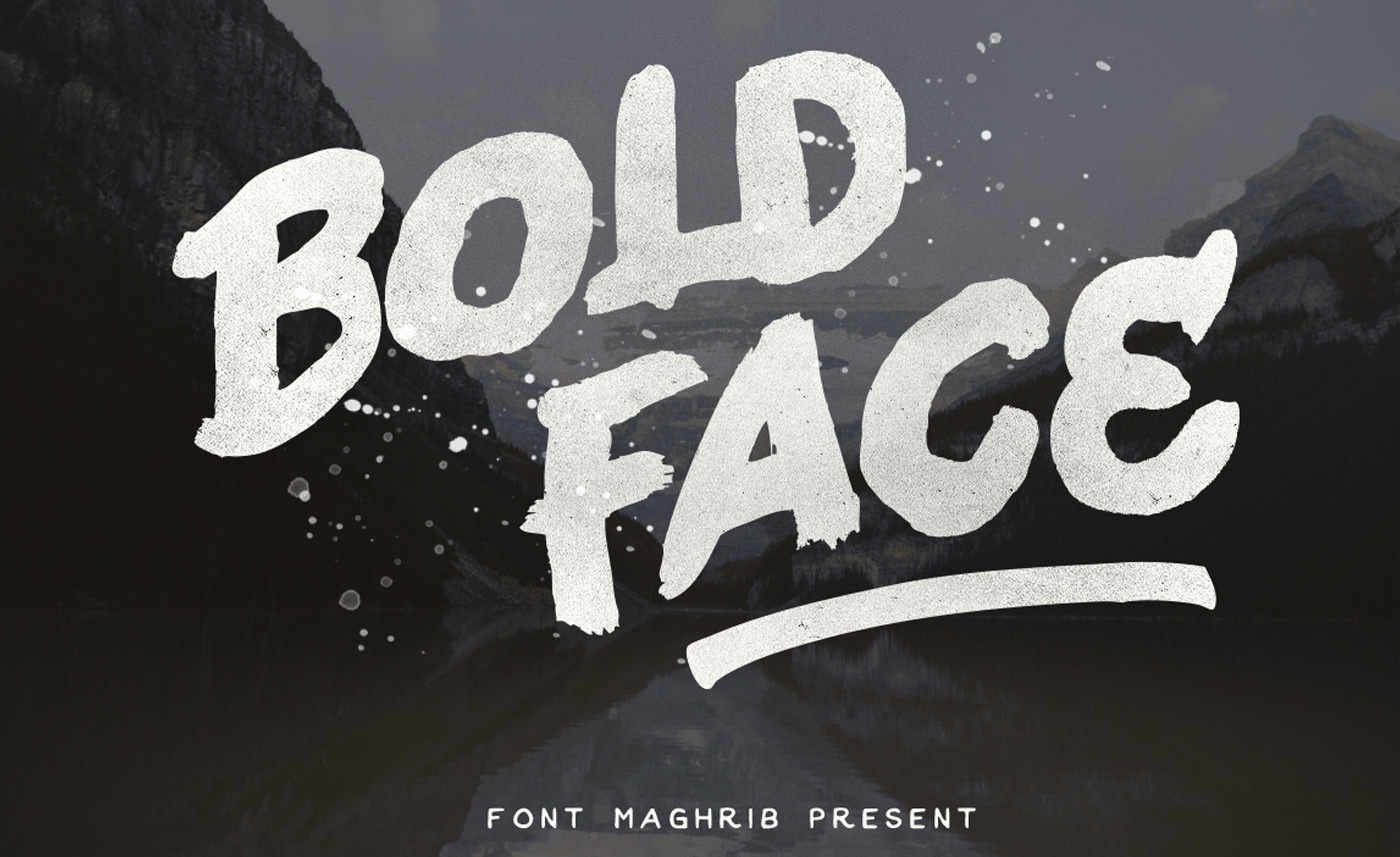
37+ Handwritten Font Microsoft Word PNG. Browse by alphabetical listing, by style, by author or by popularity. Archive of freely downloadable fonts. Handwriting fonts are written with a pen, pencil, or marker. In this video i show you how to make a custom font using microsoft font maker which can be downloaded for free from the microsoft store. I can't really say what the best one is because that's a matter of personal preferrence, but my favourites are: With about two dozen script and handwriting fonts available, you have lots of choices. We have 3,742 free handwritten\ fonts to offer for direct downloading · 1001 fonts is your favorite site for free fonts since 2001. French script mt lucida handwritting mistral segoe script i like these because they link the letters to each other like i do when i'm. Microsoft word can produce 'hand written' notes and letters for a fraction of the cost of a special service. To add a font to word, download and install the font in windows, where it will become available to all office applications. You can also import font files from a cd, a dvd, or your. Fonts come as files, and there are many sites on the internet where you can download free fonts, such as dafont. 1 2 3 4 5 6 7 8 9 10. Writing fonts include both printing and cursive styles and is less artistic than formal calligraphy. Except for one thing, you probably have everything to make your own 'handwritten' letters.
Educational Fontware Inc. Writing fonts include both printing and cursive styles and is less artistic than formal calligraphy. Fonts come as files, and there are many sites on the internet where you can download free fonts, such as dafont. Handwriting fonts are written with a pen, pencil, or marker. With about two dozen script and handwriting fonts available, you have lots of choices. French script mt lucida handwritting mistral segoe script i like these because they link the letters to each other like i do when i'm. 1 2 3 4 5 6 7 8 9 10. In this video i show you how to make a custom font using microsoft font maker which can be downloaded for free from the microsoft store. You can also import font files from a cd, a dvd, or your. I can't really say what the best one is because that's a matter of personal preferrence, but my favourites are: Browse by alphabetical listing, by style, by author or by popularity. Except for one thing, you probably have everything to make your own 'handwritten' letters. Archive of freely downloadable fonts. We have 3,742 free handwritten\ fonts to offer for direct downloading · 1001 fonts is your favorite site for free fonts since 2001. Microsoft word can produce 'hand written' notes and letters for a fraction of the cost of a special service. To add a font to word, download and install the font in windows, where it will become available to all office applications.
French script mt lucida handwritting mistral segoe script i like these because they link the letters to each other like i do when i'm.
Within that broad category you'll find a range of styles that reflects the variations and subtle differences found in actual handwriting.
Educational Fontware Inc. Writing fonts include both printing and cursive styles and is less artistic than formal calligraphy. Fonts come as files, and there are many sites on the internet where you can download free fonts, such as dafont. French script mt lucida handwritting mistral segoe script i like these because they link the letters to each other like i do when i'm. You can also import font files from a cd, a dvd, or your. Except for one thing, you probably have everything to make your own 'handwritten' letters. 1 2 3 4 5 6 7 8 9 10. I can't really say what the best one is because that's a matter of personal preferrence, but my favourites are: We have 3,742 free handwritten\ fonts to offer for direct downloading · 1001 fonts is your favorite site for free fonts since 2001. Browse by alphabetical listing, by style, by author or by popularity. Microsoft word can produce 'hand written' notes and letters for a fraction of the cost of a special service. In this video i show you how to make a custom font using microsoft font maker which can be downloaded for free from the microsoft store. Archive of freely downloadable fonts. To add a font to word, download and install the font in windows, where it will become available to all office applications. With about two dozen script and handwriting fonts available, you have lots of choices. Handwriting fonts are written with a pen, pencil, or marker.
Do they use a special font, like a handwriting font?
Wfeo19qf04jqdm. With about two dozen script and handwriting fonts available, you have lots of choices. Handwriting fonts are written with a pen, pencil, or marker. Fonts come as files, and there are many sites on the internet where you can download free fonts, such as dafont. Except for one thing, you probably have everything to make your own 'handwritten' letters. Writing fonts include both printing and cursive styles and is less artistic than formal calligraphy. In this video i show you how to make a custom font using microsoft font maker which can be downloaded for free from the microsoft store. Browse by alphabetical listing, by style, by author or by popularity. I can't really say what the best one is because that's a matter of personal preferrence, but my favourites are: We have 3,742 free handwritten\ fonts to offer for direct downloading · 1001 fonts is your favorite site for free fonts since 2001. You can also import font files from a cd, a dvd, or your. 1 2 3 4 5 6 7 8 9 10. French script mt lucida handwritting mistral segoe script i like these because they link the letters to each other like i do when i'm. Archive of freely downloadable fonts. Microsoft word can produce 'hand written' notes and letters for a fraction of the cost of a special service. To add a font to word, download and install the font in windows, where it will become available to all office applications.
Do they use a special font, like a handwriting font?
45 Fonts That Look Like Handwriting Free In Word Canva Google More. Writing fonts include both printing and cursive styles and is less artistic than formal calligraphy. With about two dozen script and handwriting fonts available, you have lots of choices. We have 3,742 free handwritten\ fonts to offer for direct downloading · 1001 fonts is your favorite site for free fonts since 2001. Except for one thing, you probably have everything to make your own 'handwritten' letters. French script mt lucida handwritting mistral segoe script i like these because they link the letters to each other like i do when i'm. Handwriting fonts are written with a pen, pencil, or marker. 1 2 3 4 5 6 7 8 9 10. Archive of freely downloadable fonts. In this video i show you how to make a custom font using microsoft font maker which can be downloaded for free from the microsoft store. You can also import font files from a cd, a dvd, or your. Microsoft word can produce 'hand written' notes and letters for a fraction of the cost of a special service. I can't really say what the best one is because that's a matter of personal preferrence, but my favourites are: Browse by alphabetical listing, by style, by author or by popularity. Fonts come as files, and there are many sites on the internet where you can download free fonts, such as dafont. To add a font to word, download and install the font in windows, where it will become available to all office applications.
Handwritten fonts are nothing new, but they've gained popularity over the years.
How to draw sweet font curves (spanish). Open word and go to the font menu. All fonts are in truetype format. Download free handwritten fonts at urbanfonts.com our site carries over 30,000 pc fonts and mac fonts. In this video i show you how to make a custom font using microsoft font maker which can be downloaded for free from the microsoft store. I see some microsoft word documents have what looks like handwriting, scattered throughout the document. Handwritten fonts are nothing new, but they've gained popularity over the years. Atakana handwriting font script by afkari studio kanatype.com. Scroll down the list to find options that look handwritten. Fonts come as files, and there are many sites on the internet where you can download free fonts, such as dafont.